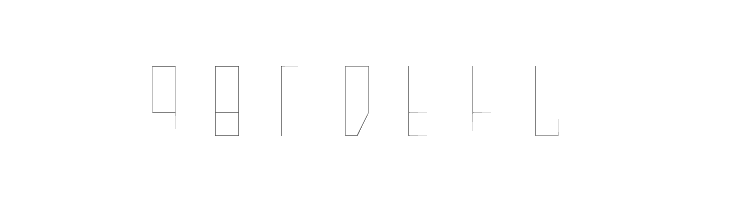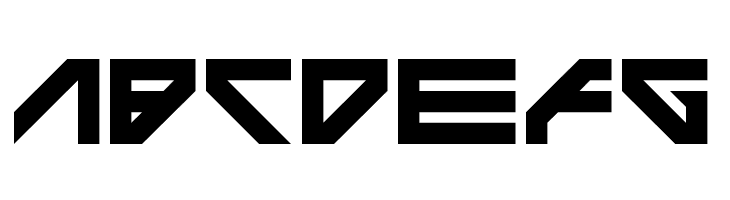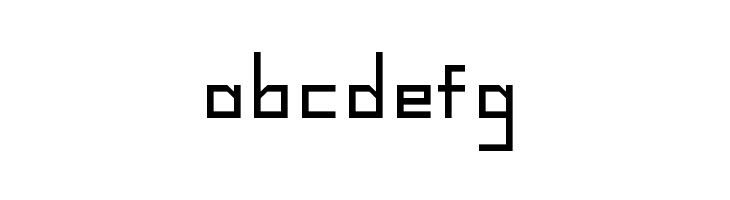
( Fonts by H.G. Blakeman )
A geometric, modern font with consistent stroke width and sharp angles.
( Fonts by Chequered Ink )
A bold, geometric font with a futuristic and angular design.
( Fonts by H.G. Blakeman )
A modern, geometric font with clean lines and minimalist design.